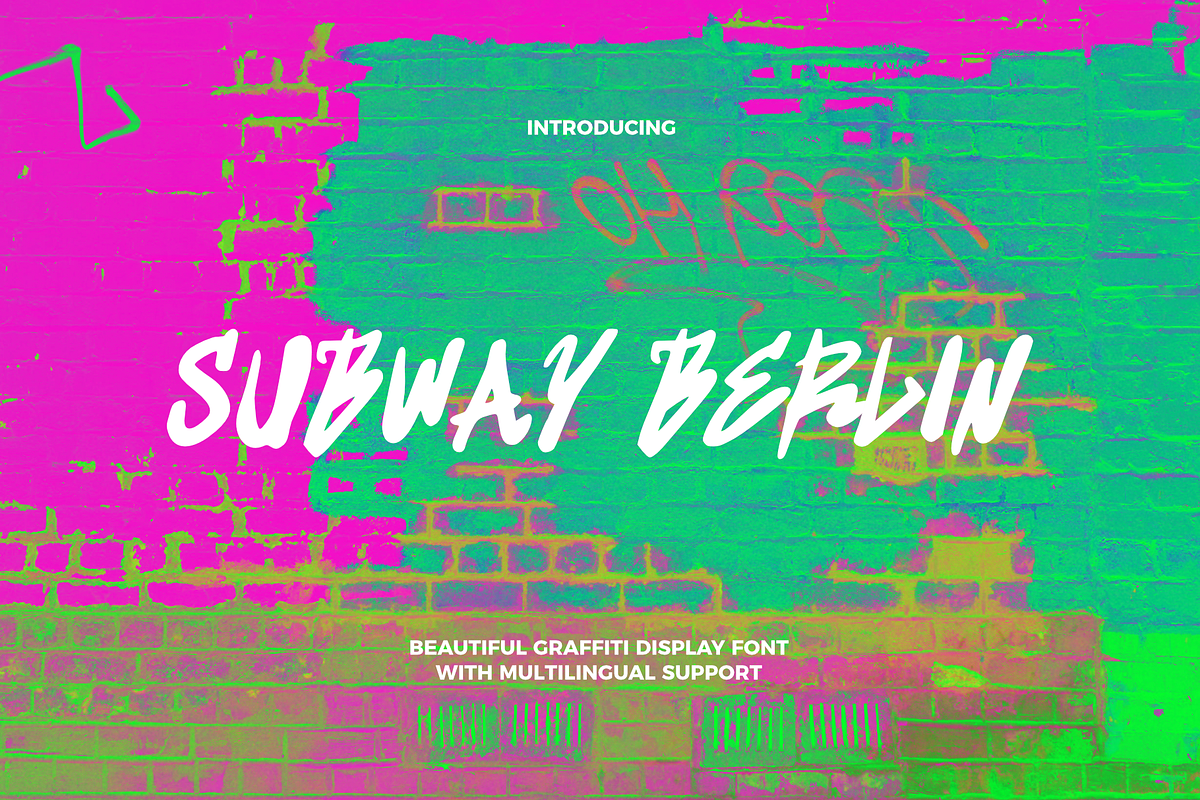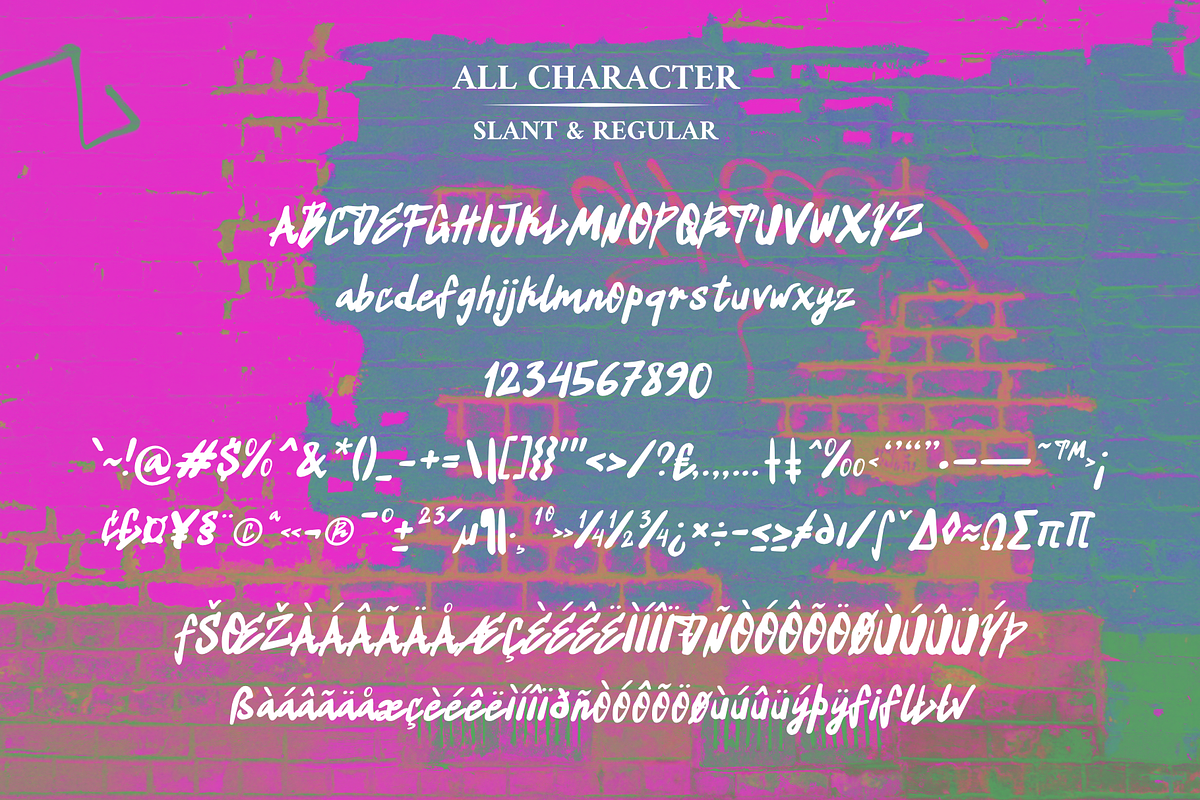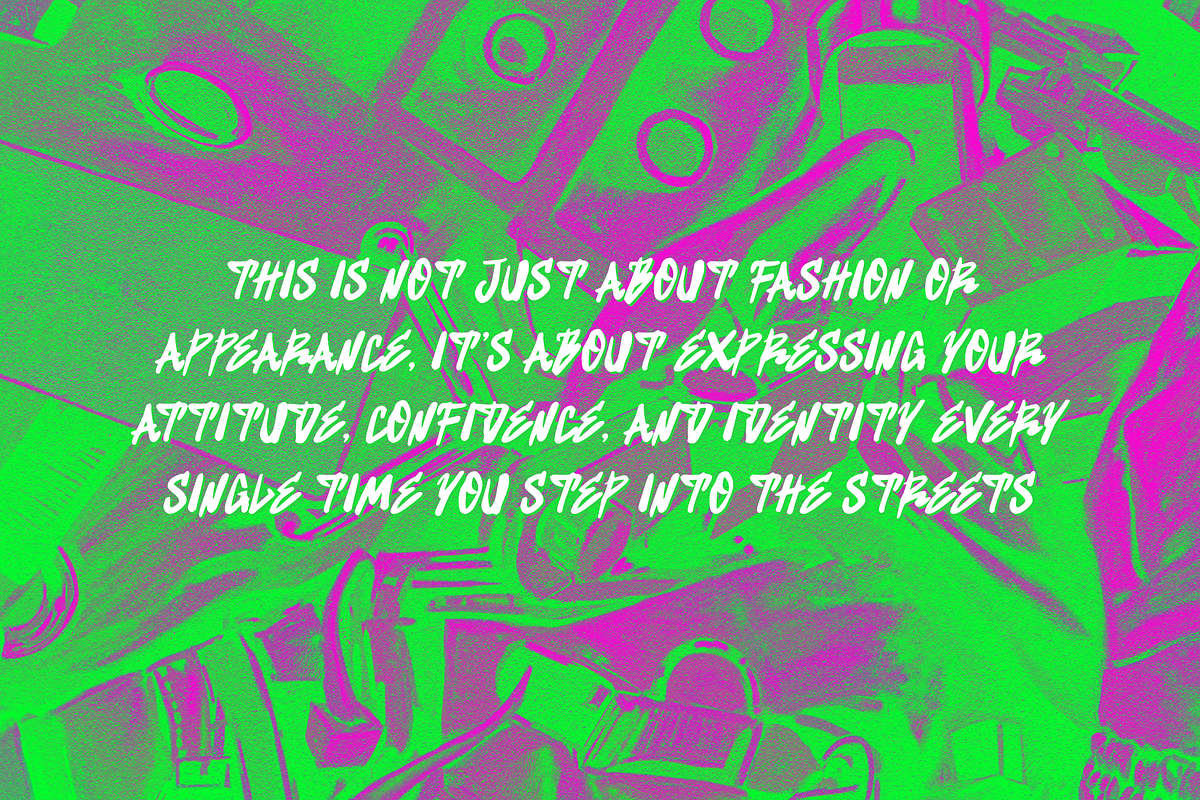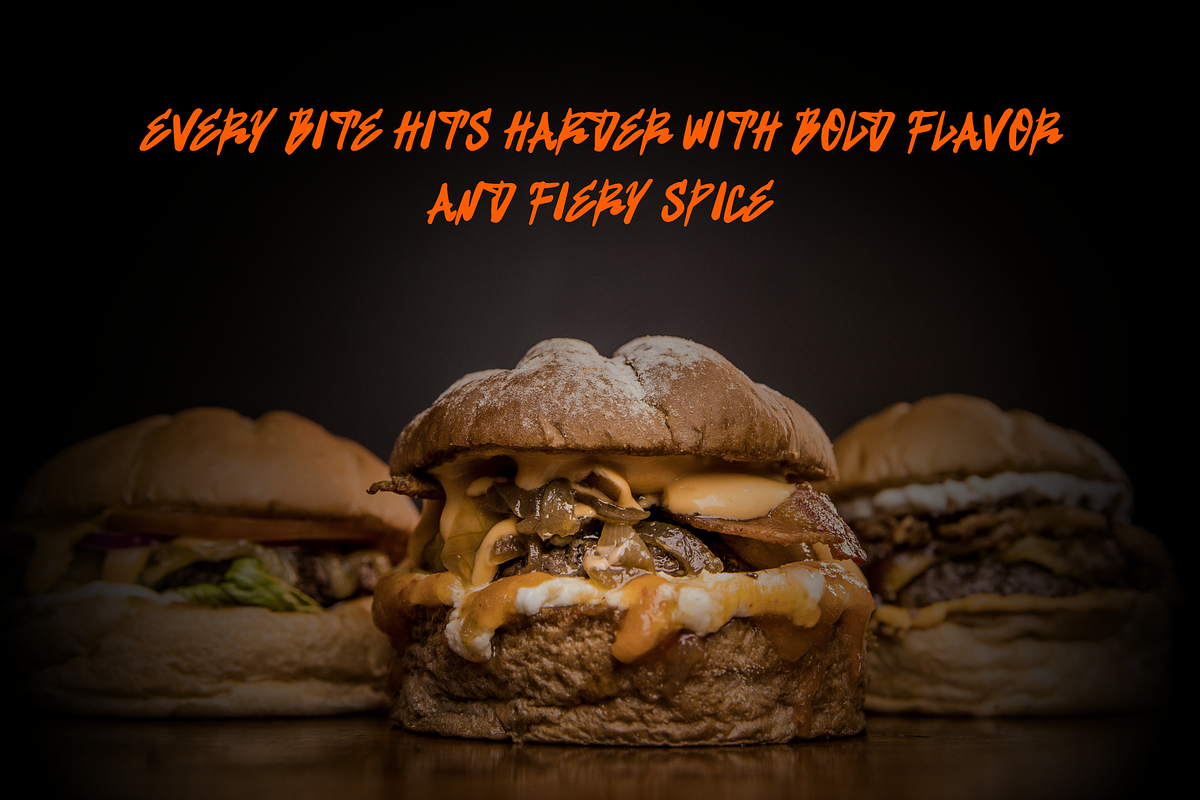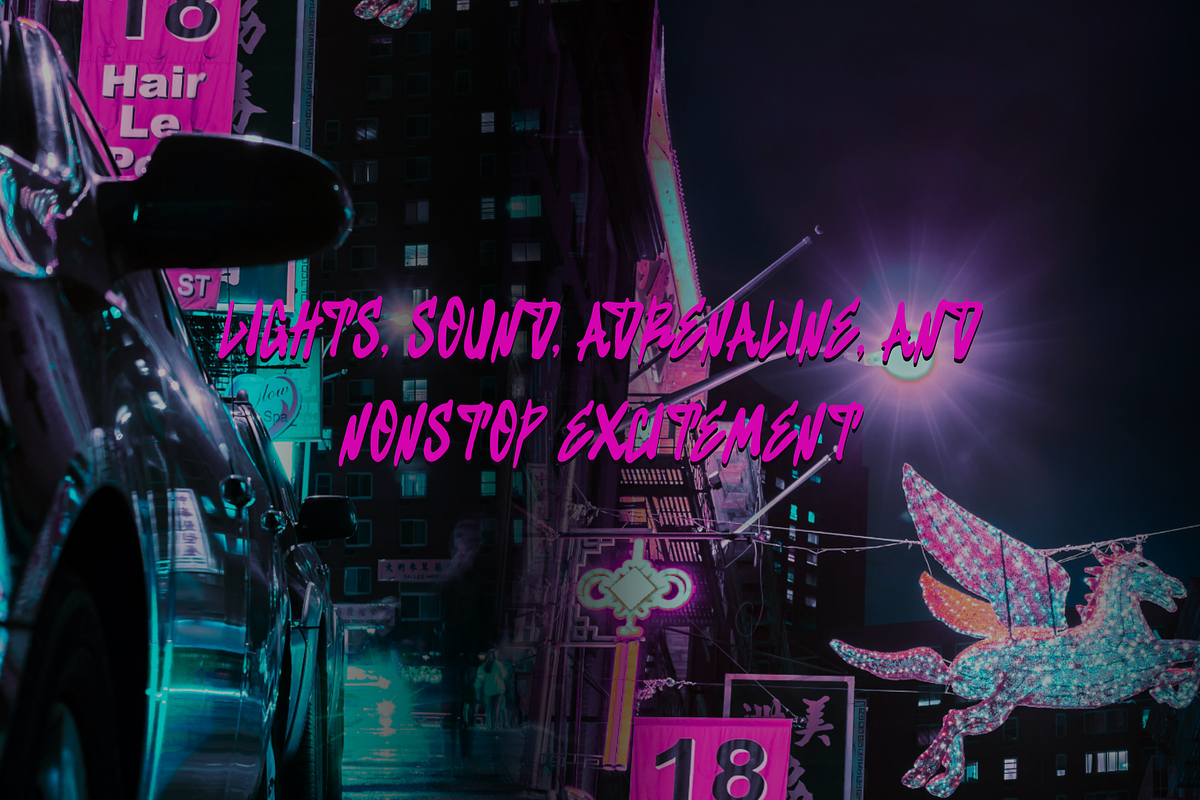
Subway Berlin Street Graffiti Font
Subway Berlin is a bold urban brush font inspired by street culture, graffiti art, and modern city aesthetics. Designed with energetic brush strokes and expressive handwritten details, this typeface delivers a strong, edgy, and authentic character perfect for creative branding projects.
Its rough yet stylish appearance makes Subway Berlin ideal for streetwear logos, food packaging, music posters, gaming thumbnails, social media content, advertising, and modern urban designs. The dynamic brush texture creates a raw handmade feel that instantly grabs attention and adds personality to every composition.
Whether you are creating bold headlines, eye-catching merchandise, or trendy promotional graphics, Subway Berlin brings a powerful street-style atmosphere with a modern creative touch.
Streetwear Branding
Urban Posters
Food & Beverage Designs
Gaming Content
Music Event Flyers
YouTube Thumbnails
Logo & Packaging Design